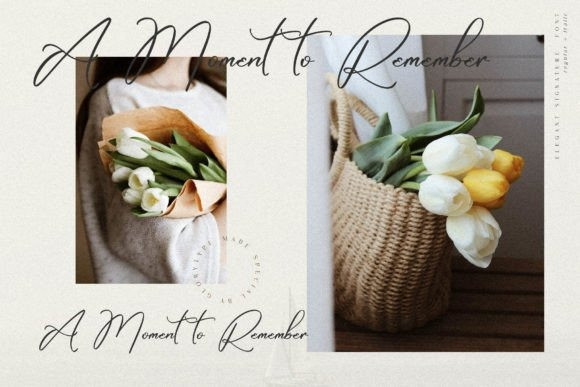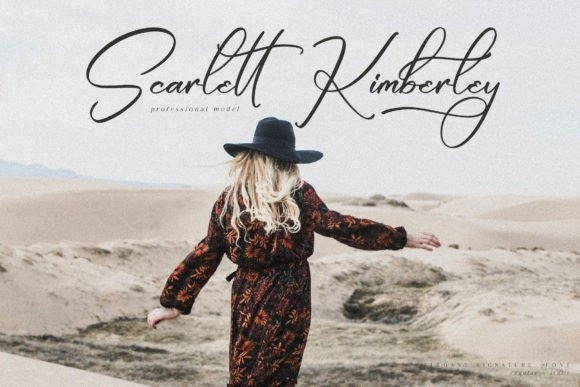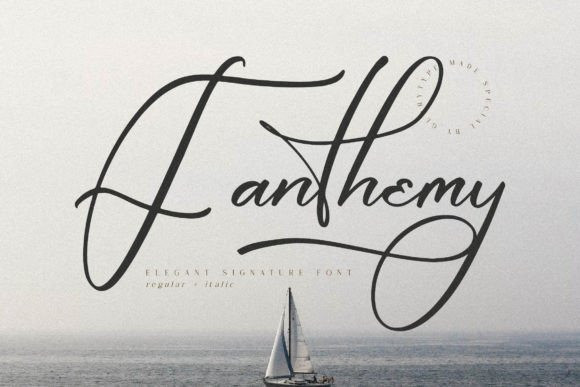
Fanthemy Font
Fanthemy Script Font feels equally charming and elegant. It looks stunning on wedding invitations, thank you cards, quotes, greeting cards, logos, business cards, and every other design which needs a handwritten touch.